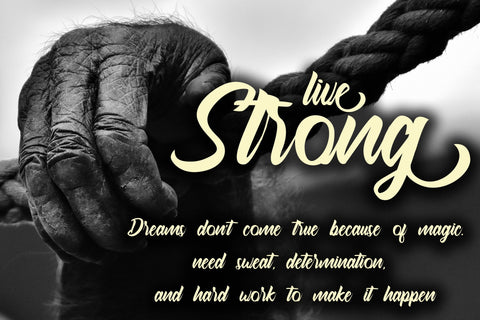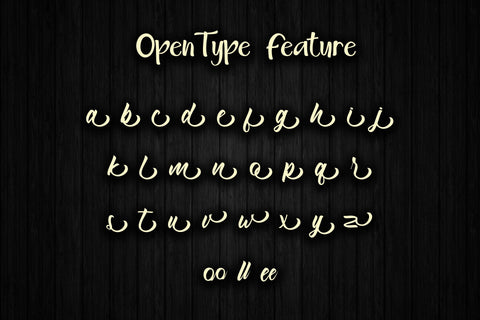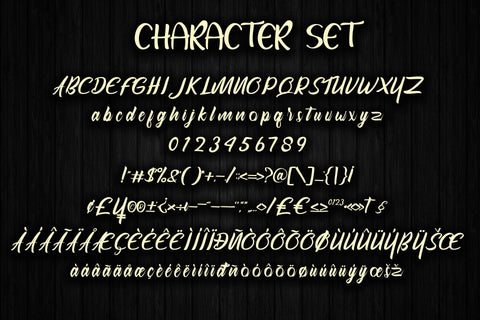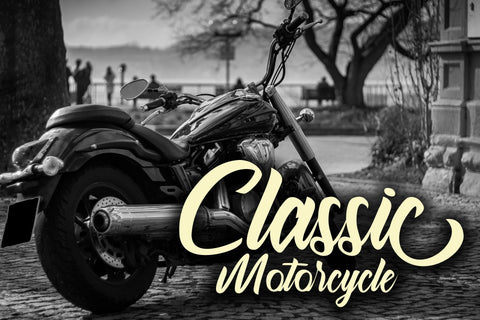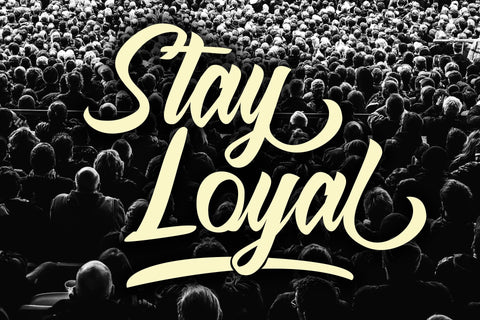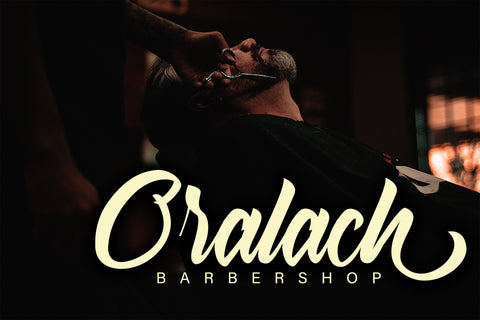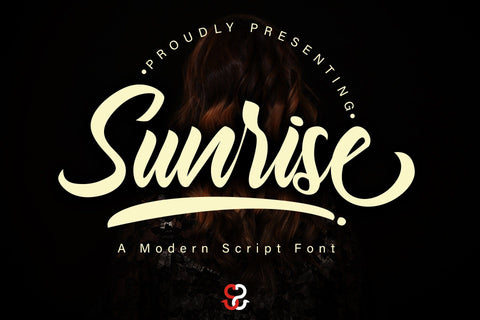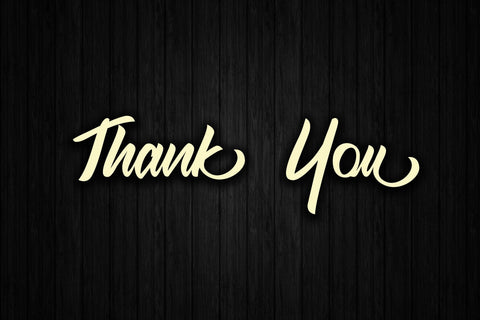
Sunrise Modern Script Font
Sunrise is a beautiful and elegantly designed script font, suitable for commercial, film, company, logo and other needs
Ligature\
Stylistic alternate for Ending\
Basic Latin Language Support (AÀÁÂÃÄÅCÇDÐEÈÉÊËIÌÍÎÏÑOØÒÓÔÕÖUÙÜÚÛWYÝŸÆß )